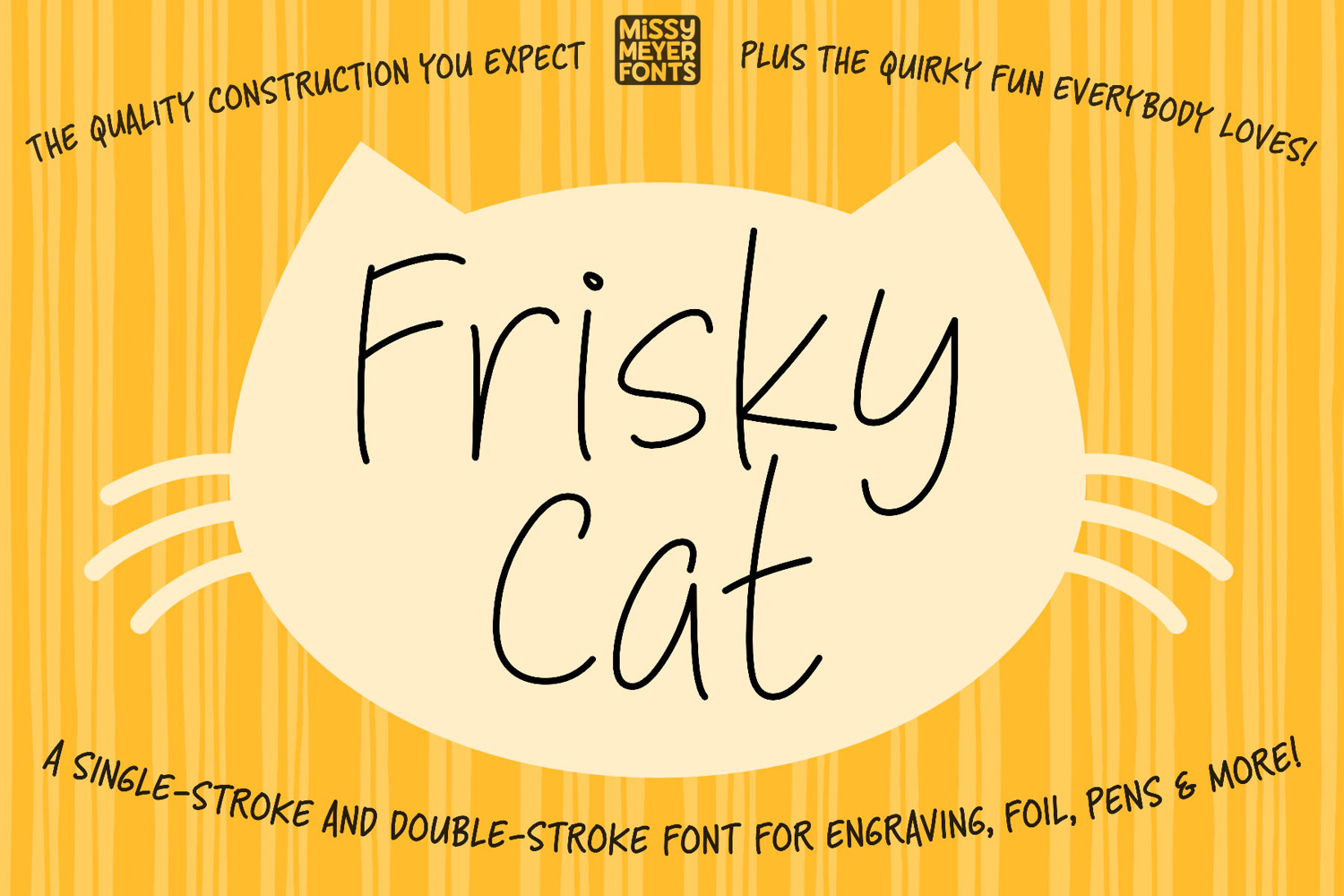
Frisky Cat- a single-line stroke font for engraving and pens
FRISKY CAT is a single-line font built from my "Intruding Cat" outline font. It has a tall and narrow handwriting style that works for tons of fun, casual projects, from greeting cards to jewelry to cutting boards!
The font contains the full "Basic Latin" 95-character set (A-Z, a-z, 0-9, lots of punctuation; basically everything that appears on an English-language keyboard), as well as the full 96 "Latin-1 Supplemental" character set for language support, some extra punctuation, and a few handy arrows and shapes.
Single-stroke and double-stroke fonts aren’t your ordinary fonts; they can’t be used for word processing or printing. They’re meant for a sketch pen, foil quill, engraving tool, infusible ink pen, Glowforge scoring, or any other stylus or nib that draws letters with a single line instead of an outline. This font comes in both a single stroke and double stroke version; different software programs will use different formats.